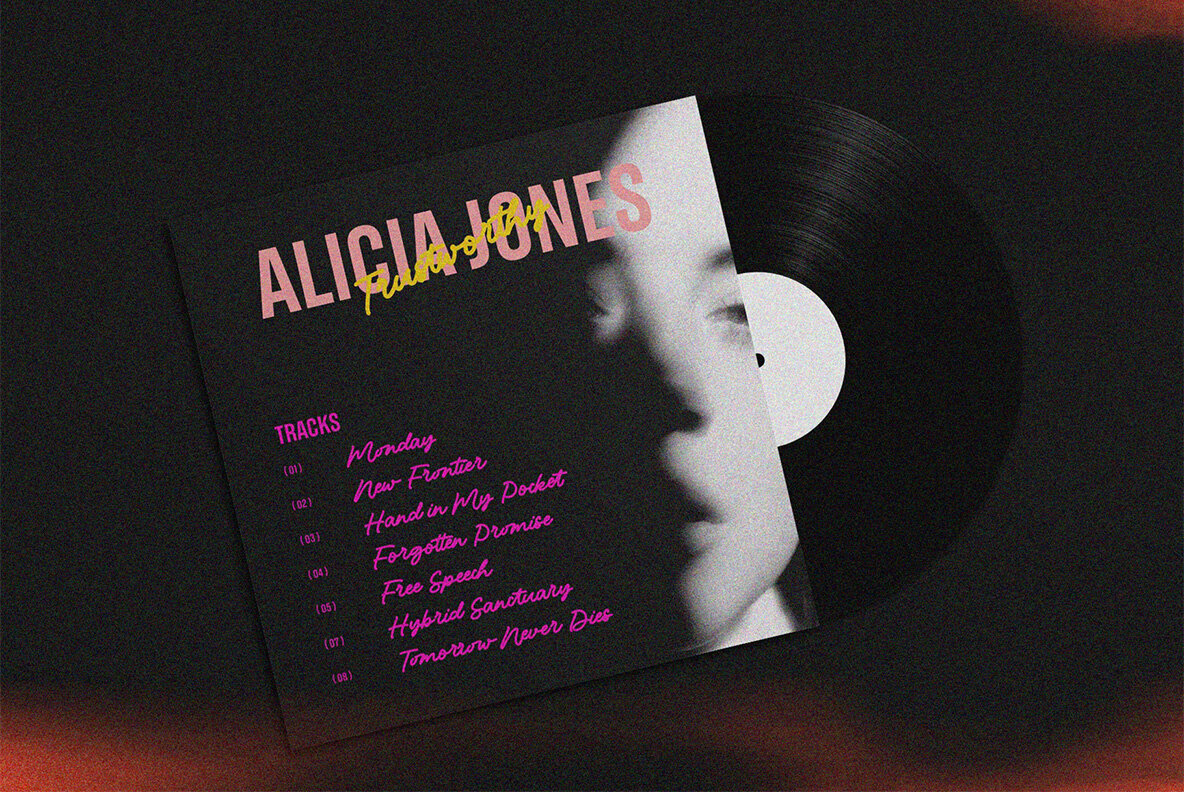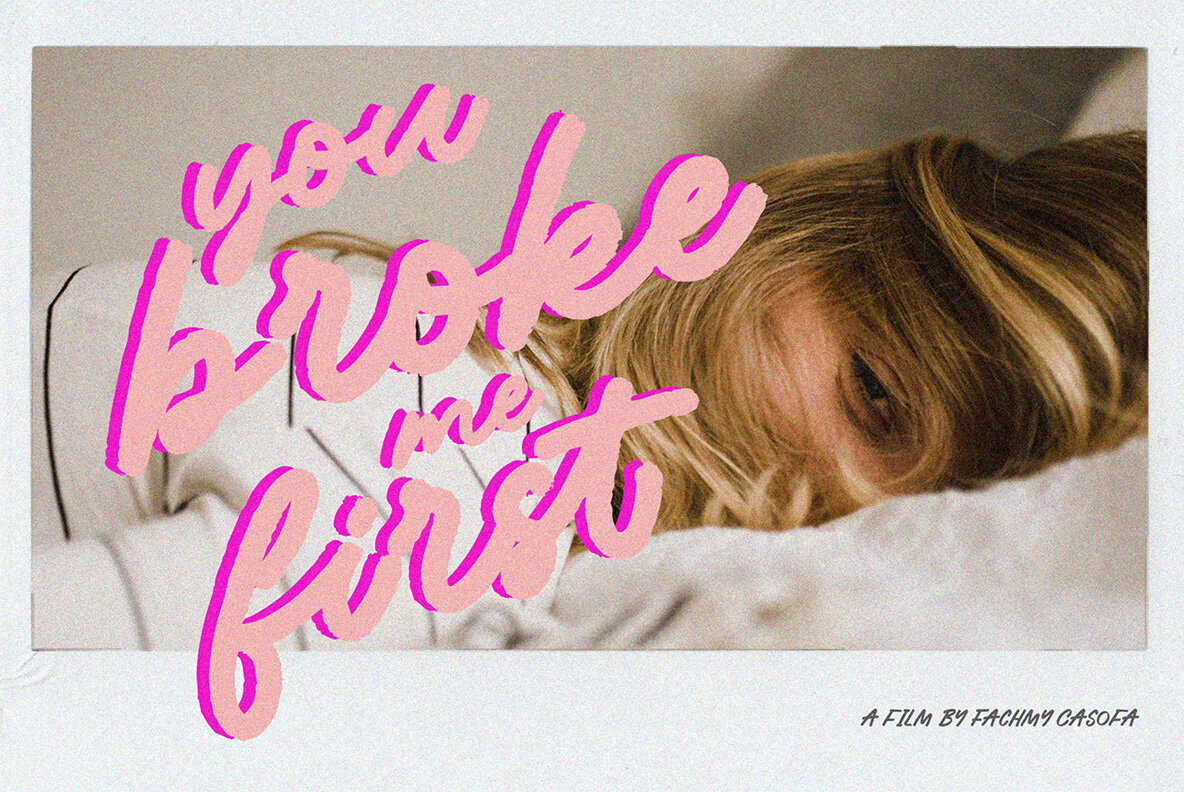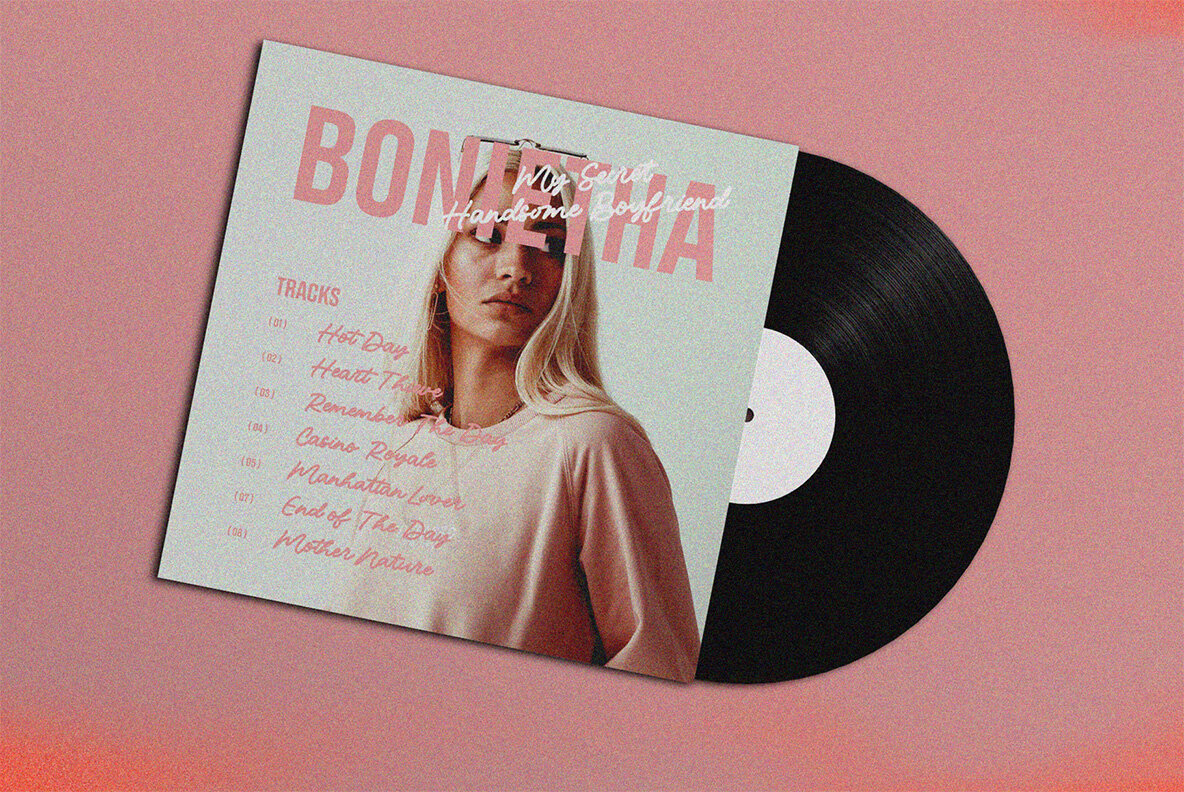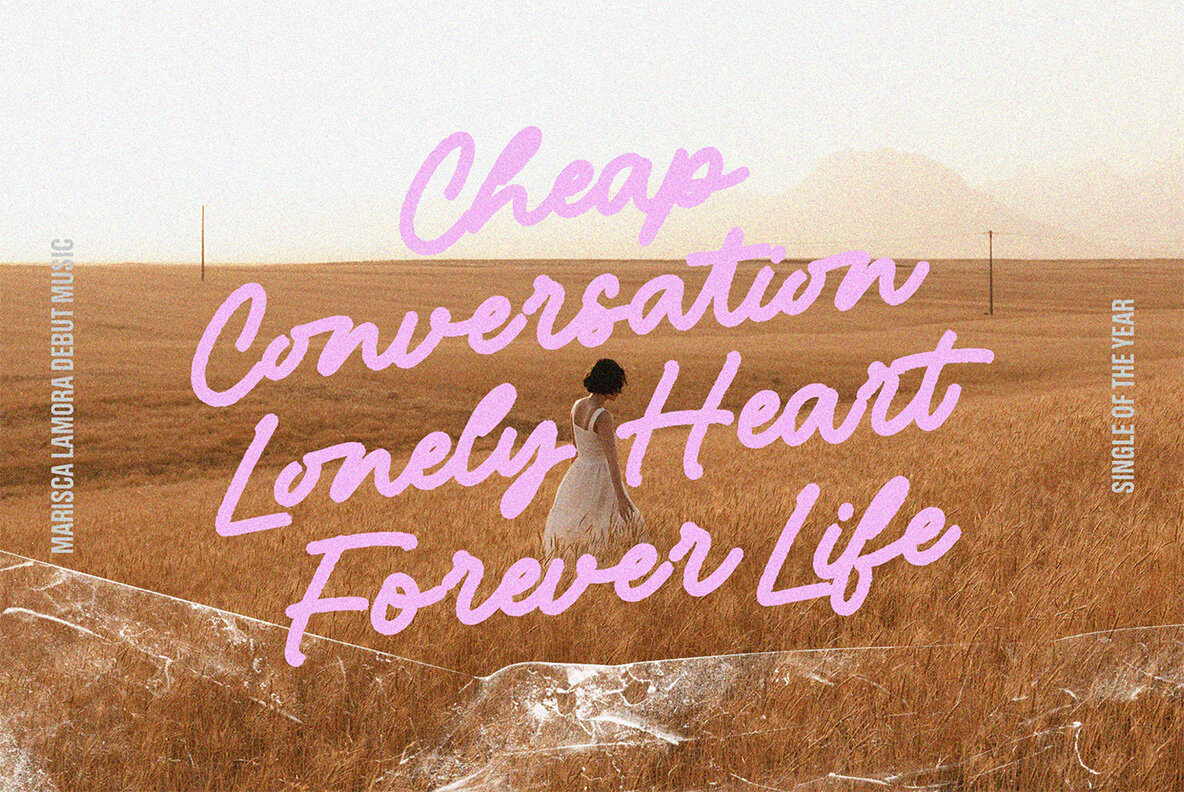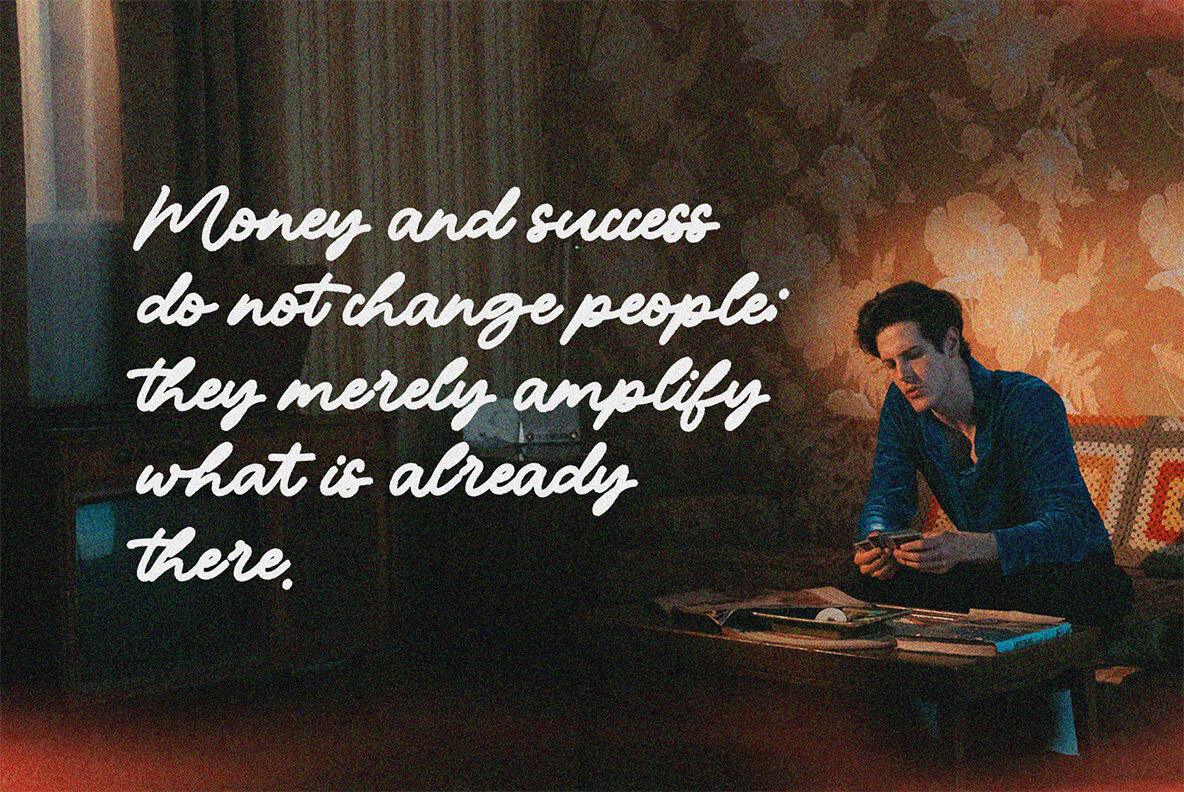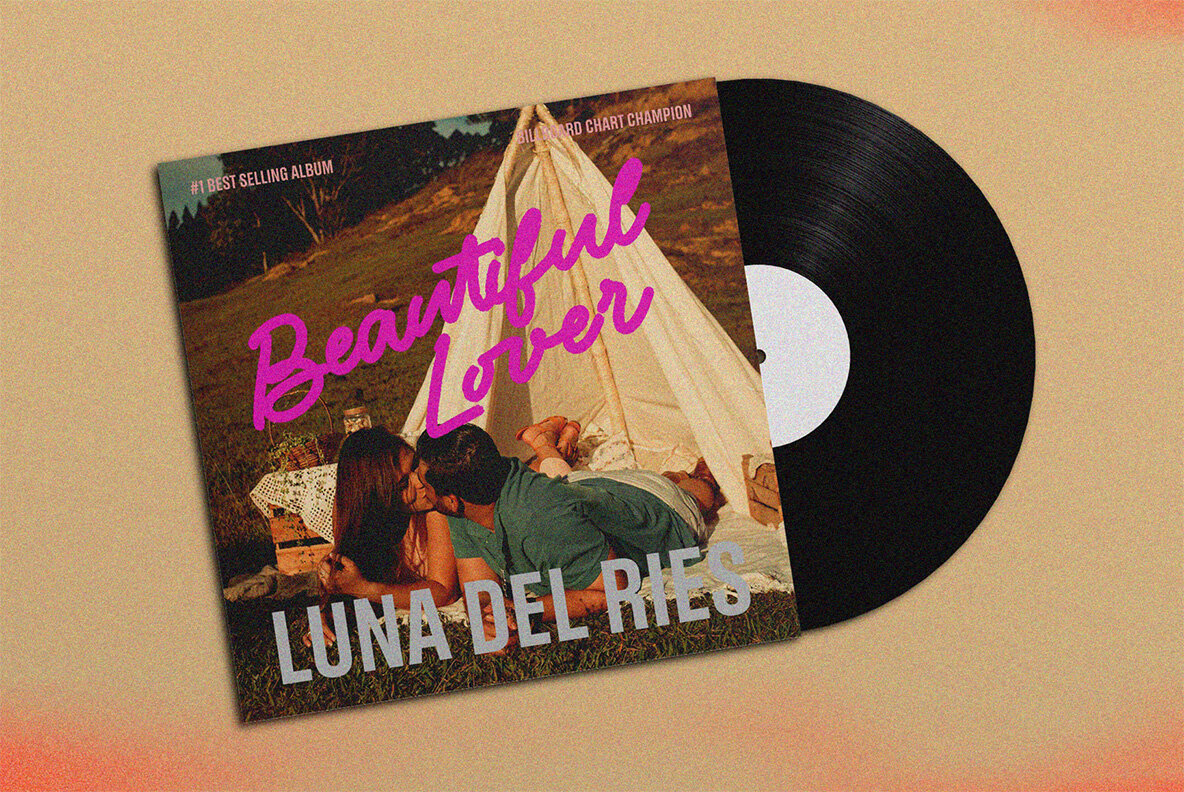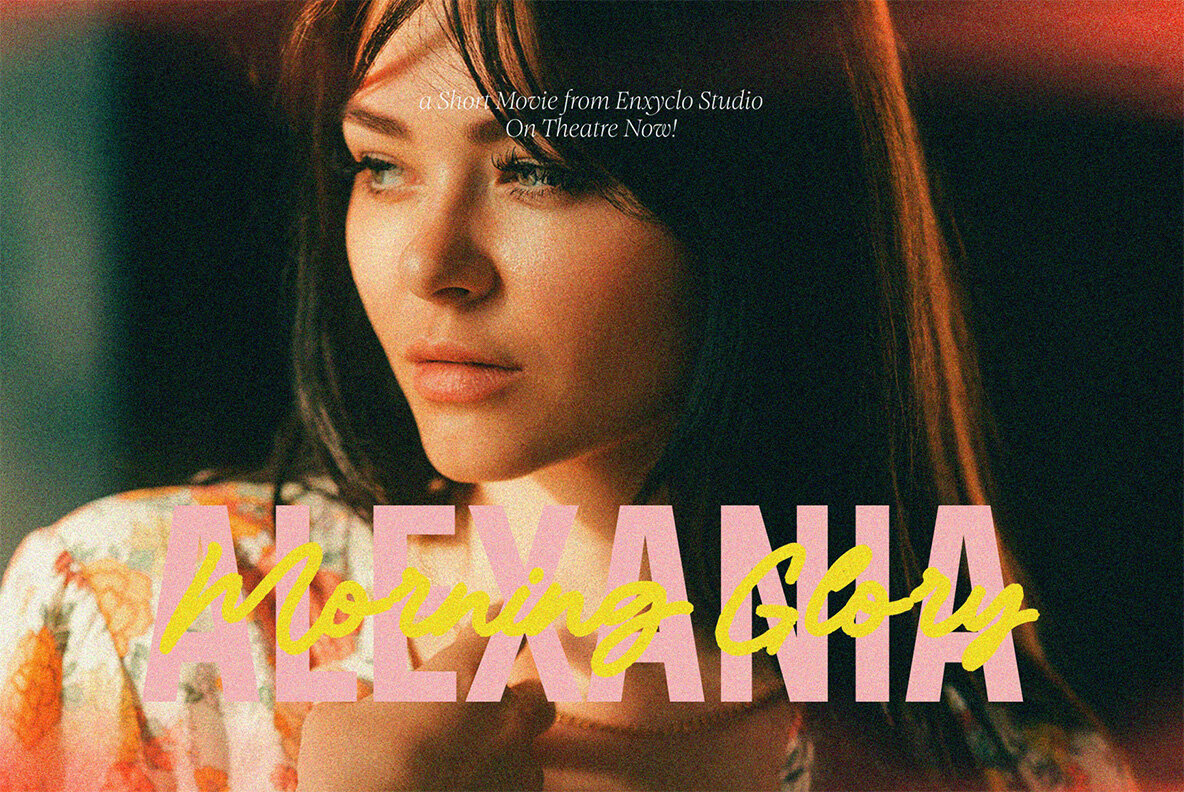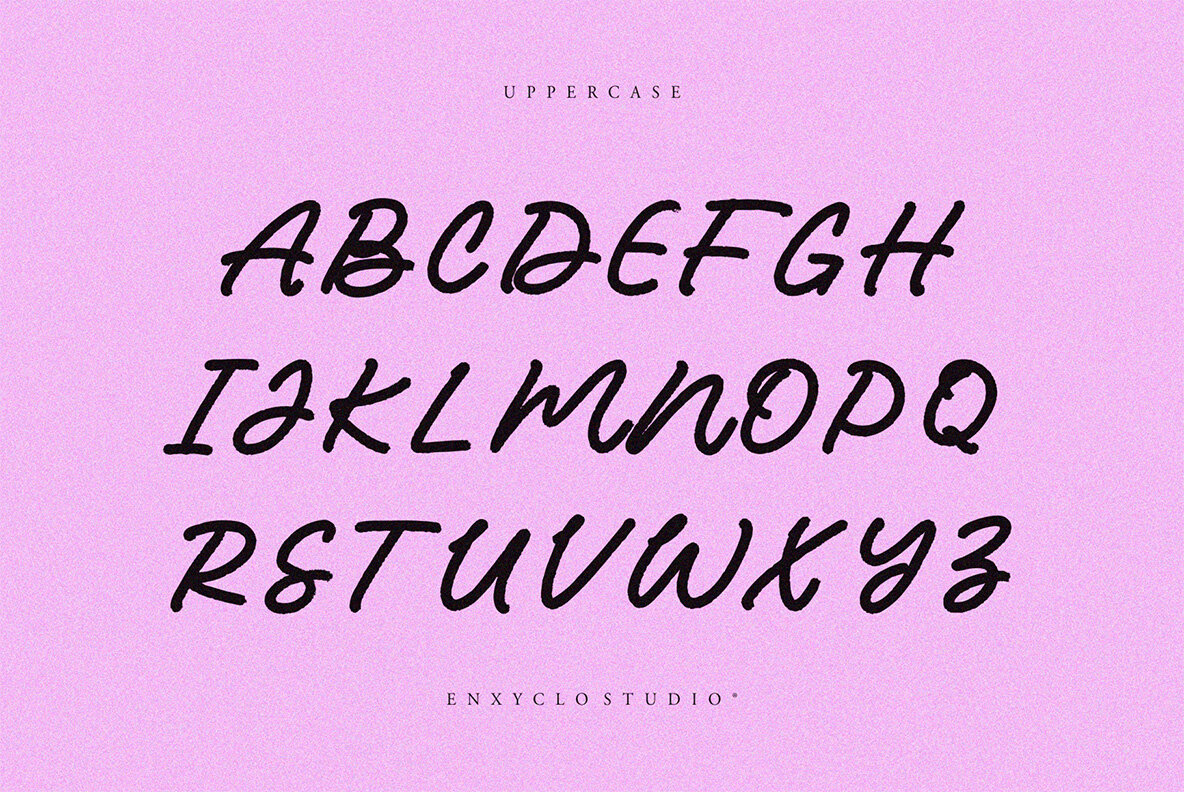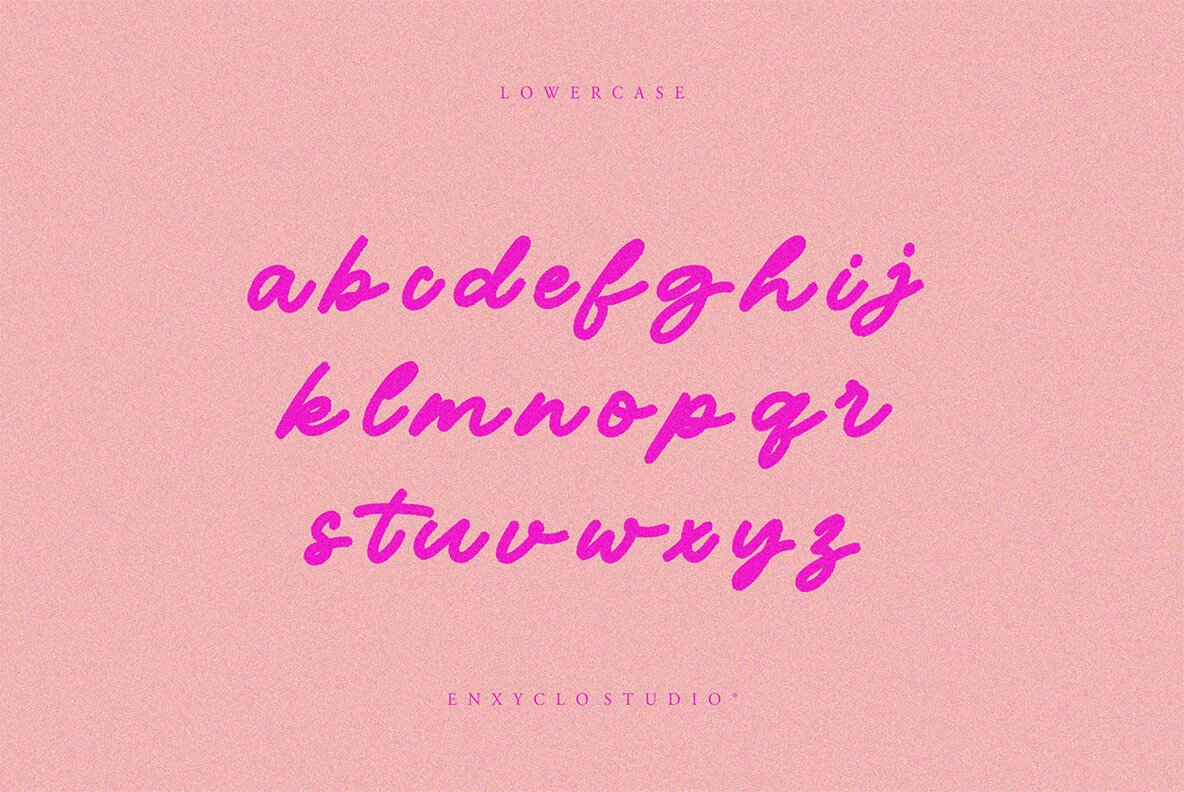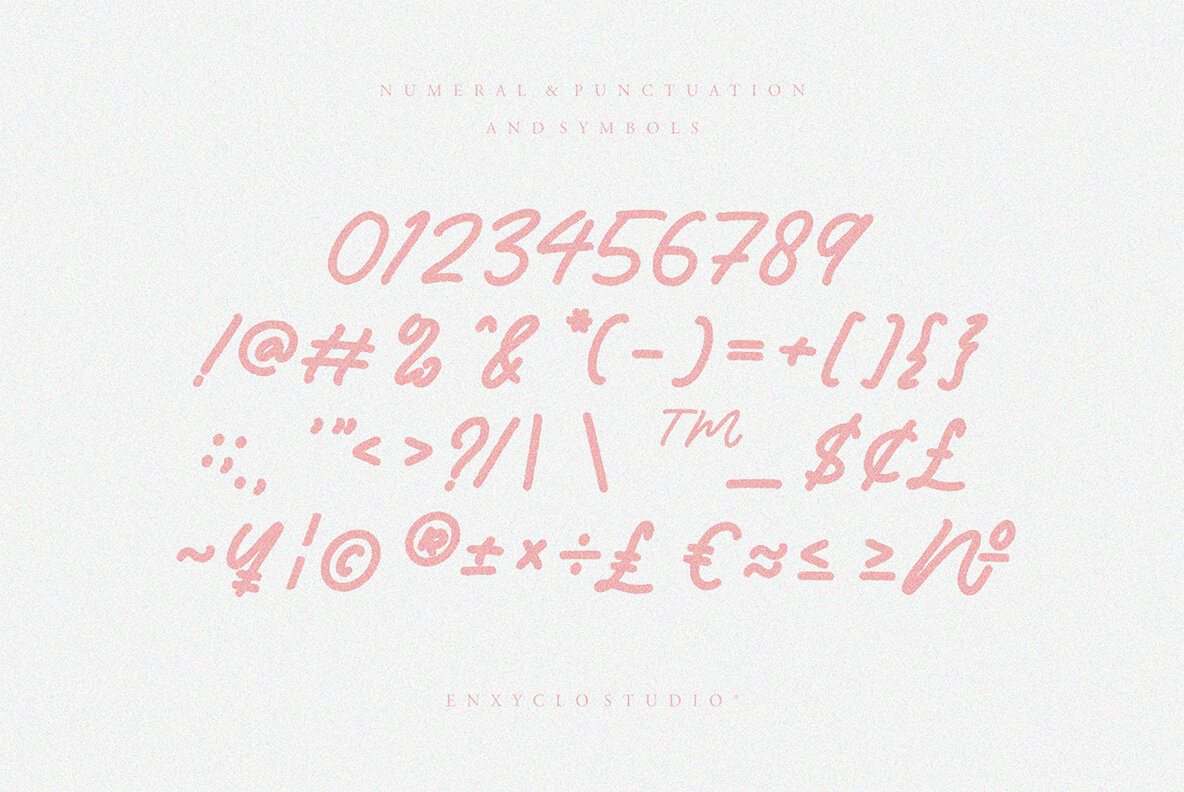
NCL Broton Onqtuops Font
NCL Broton Onqtuops Regular
NCL Broton Onqtuops is a monoline brush script font. Masterfully designed to become a true favorite, this font has the potential to bring each of your creative ideas to the highest level! It was purposely crafted to be used in large point sizes, although it doesn’t lose its magic in small point sizes. It is perfect for wedding, headline, billboard, magazines, website, titles, poster, branding, and logos. No matter the topic, this font will be an incredible asset to your fonts’ library, as it has the potential to elevate any creation. With this beautiful font, absolutely you can make your project stand out from the rest. Features: Contains 365 Glyphs Uppercase & Lowercase Numeral, Punctuation & Symbols 13 Ligature Multilingual Support